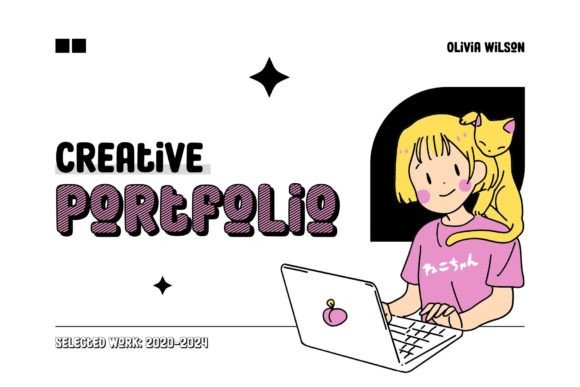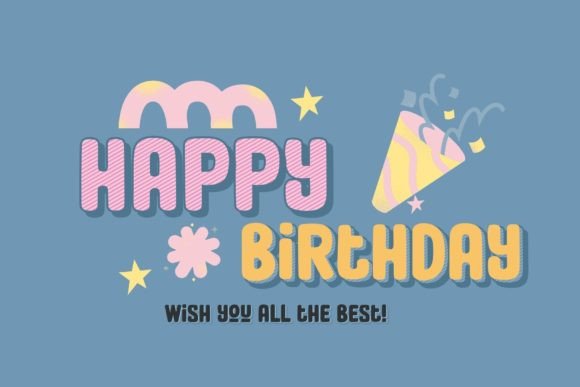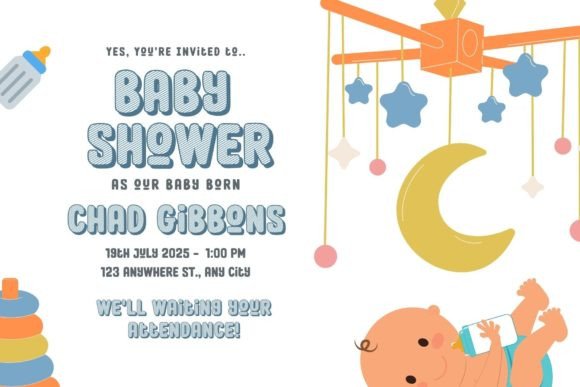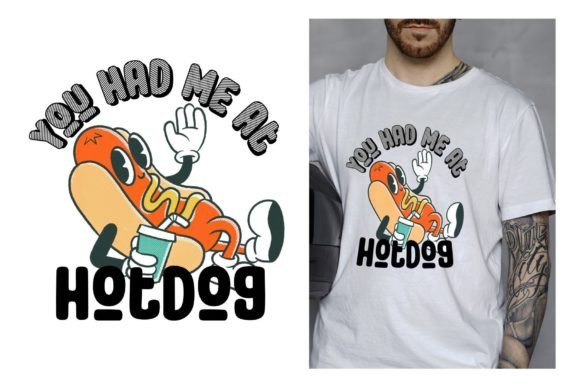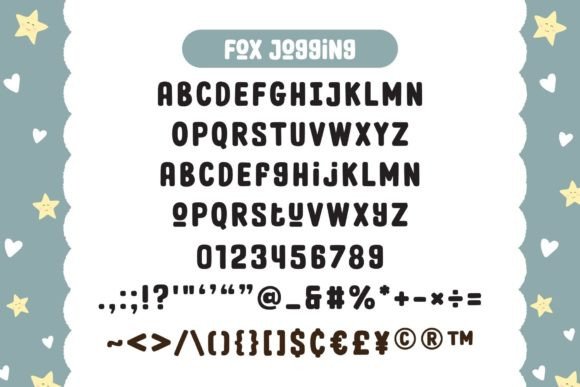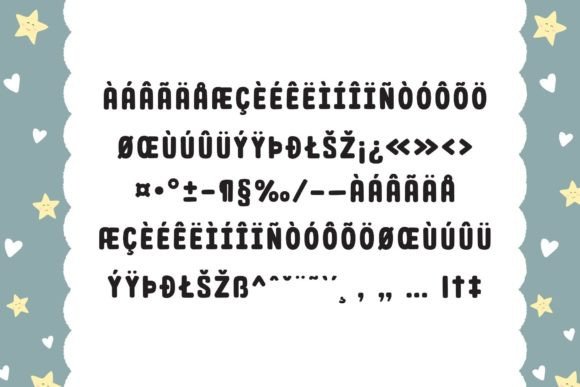
Introducing Fox Jogging Font: The Ultimate Display Font for Energetic Designs
Are you looking for a font that can add a captivating and energetic touch to your designs? Look no further than Fox Jogging Font, a 3-style font that is cool, cute, and playful. This display font is perfect for use in various design projects, including publications, menus, logos, business cards, and even printed on t-shirts. With its unique and vibrant design, Fox Jogging Font is sure to make your designs stand out.
Key Features of Fox Jogging Font
Fox Jogging Font has several key features that make it an ideal choice for designers and crafters. Some of its main features include:
- Vibrant and Expressive Design: Fox Jogging Font has a vibrant and expressive design that allows you to create attention-grabbing headlines, t-shirt typography, banners, product labels, and more.
- 3 Style Font: This font comes in 3 different styles, giving you flexibility and versatility in your designs.
- Cool, Cute, and Playful: Fox Jogging Font is a cool, cute, and playful display font that adds a fun and energetic touch to your designs.
- Unique and Captivating: With its unique and captivating design, Fox Jogging Font is perfect for designers and crafters who want to create designs that stand out.
Fox Jogging Font is perfect for use in various design projects, including:
- Publications: Use Fox Jogging Font to create eye-catching headlines and titles for your publications, such as magazines, newspapers, and brochures.
- Menus: Add a fun and energetic touch to your menus with Fox Jogging Font, perfect for restaurants, cafes, and food trucks.
- Logos: Create a unique and captivating logo for your business or brand with Fox Jogging Font.
- Business Cards: Use Fox Jogging Font to create business cards that stand out and make a lasting impression.
- T-Shirts and Apparel: Print Fox Jogging Font on t-shirts, hoodies, and other apparel to create fun and energetic designs.
Why Choose Fox Jogging Font?
There are many reasons why you should choose Fox Jogging Font for your design projects. Here are a few:
- Unique Design: Fox Jogging Font has a unique and captivating design that will make your designs stand out.
- Flexibility: With 3 different styles to choose from, Fox Jogging Font gives you flexibility and versatility in your designs.
- High-Quality: Fox Jogging Font is a high-quality font that is perfect for professional designs.
Tips for Using Fox Jogging Font
Here are a few tips for using Fox Jogging Font in your design projects:
- Use it for Headlines: Fox Jogging Font is perfect for use in headlines and titles, where you want to grab the attention of your audience.
- Experiment with Colors: Fox Jogging Font looks great in bright and bold colors, so don’t be afraid to experiment and find the perfect color for your design.
- Pair it with Other Fonts: Fox Jogging Font can be paired with other fonts to create a unique and interesting design.
- Use it for Branding: Fox Jogging Font is perfect for use in branding and advertising, where you want to create a fun and energetic image.